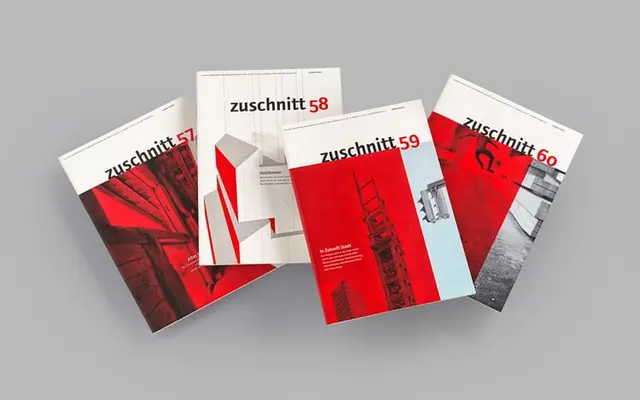
Foundry Journal
The Foundry Types · David Quay · 1995
A humanist sans drawn by David Quay in 1995 as a stripped-back reworking of his earlier ITC Quay Sans, optimised for narrow column measures in magazines and journals.
Designed by David Quay and released in 1995, it began as a wholesale redrawing of ITC Quay Sans, removing the original's flared terminals to expose a leaner skeletal structure with sharp cut-in junctions at connecting strokes. The result is a near-monoweight face with enough internal rhythm to sustain long runs of body text without monotony. Five styles run from Book to Bold with a single Book Italic, making it a compact but functional choice for print editorial work.
Described explicitly as a humanistic sans serif; derived from ITC Quay Sans with flares removed, leaving clean skeletal forms with sharp cut-in junctions that place it firmly in the humanist sans tradition.